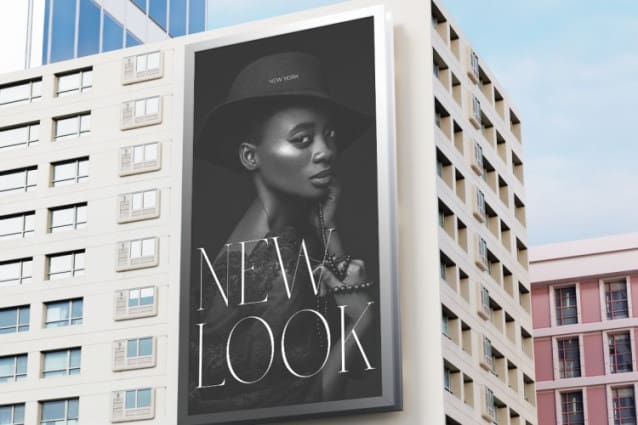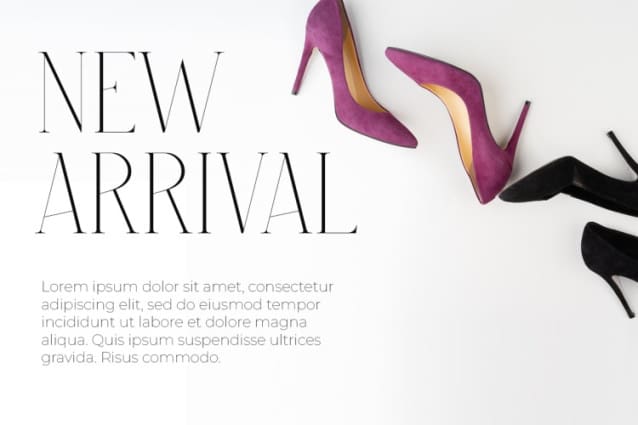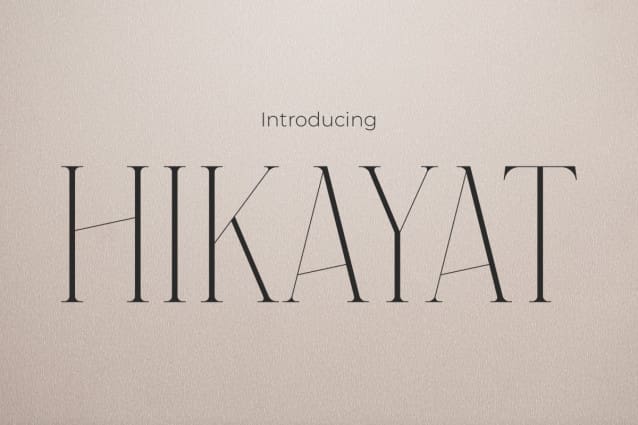
Hikayat Font
Hikayat Font – Where Luxury Meets Typography. With opulence embedded in every line and curve, Hikayat is a display font that epitomizes the essence of luxury and elegance in the fashion world. Designed meticulously to present a captivating impression, each letter serves as a means for brands to voice their messages with style and assertiveness. Hikayat takes you on a journey through the glittering runway, where every word formed exudes an aura of unmatched elegance and prestige. For brands seeking an identity reflecting excellence and fame in the fashion industry, Hikayat Font is an unmissable choice.
When titles are adorned with the beauty of Hikayat, it feels like stepping onto a grand stage filled with glamour and sophistication. Each character portrays luxury and grandeur, making every design you create a memorable performance. Hikayat Font is more than just a font; it is a symbol of class and style in the fashion world that shines through every piece of its calligraphic art. From stage names to fashion catalogs, Hikayat enables your brand to speak in an unforgettable language of luxury.